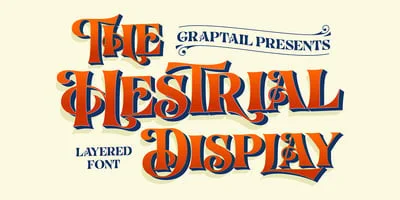
Hestrial Font
Hestrial Font is ideal for home comfort branding, hearth and fireplace marketing, cozy interior design projects, family-centered businesses, domestic lifestyle publications, warm hospitality venues, and nurturing household products.
What makes Hestrial Font exciting is its homey warmth and domestic tranquility, featuring comforting letterforms that capture the essence of family hearth while delivering cozy visual appeal and household authenticity.
The Hestrial Font family includes Light, Regular, Medium, Bold, and Heavy weights, plus cozy variants and home-inspired alternates that enhance the font's comforting character and domestic possibilities.
Hestrial Font embodies the sacred essence of home and the nurturing spirit of domestic harmony through heartwarming typography design. This comforting typeface captures the gentle warmth of family hearth and the peaceful sanctuary of loving homes, creating a cozy visual language that speaks to families and home-centered individuals who value domestic tranquility, family togetherness, and the nurturing comfort of well-loved living spaces. The font's homey character and domestic appearance make it perfect for home goods brands, family businesses, and household companies that want to communicate warmth, comfort, and the enduring appeal of family-centered living.
Home goods companies and family-oriented businesses consistently choose Hestrial Font for projects that require authentic domestic credibility and heartwarming visual appeal. The typeface's nurturing construction and family-centered personality make it exceptionally effective for home decor retailers, family restaurants, and household service companies where domestic comfort and family values are paramount. Each character has been designed with familial precision to ensure maximum warmth across all home applications and domestic environments.
The domestic advantages of Hestrial Font extend beyond its homey appeal to include practical functionality for diverse household applications. The font maintains excellent readability in home settings while delivering the distinctive character that creates meaningful family connections and resonates with audiences seeking authentic domestic comfort. Its comprehensive character set includes household symbols and family elements that make it particularly suitable for home documentation and domestic communication.
Home decor stores, family restaurants, and household service companies frequently incorporate Hestrial Font into their brand identity systems because of its ability to instantly convey domestic authenticity and family warmth. The typeface's comforting aesthetic helps establish trust in family-oriented markets while appealing to customers who value home comfort, family togetherness, and the nurturing experiences that come from authentic domestic harmony and loving household environments.